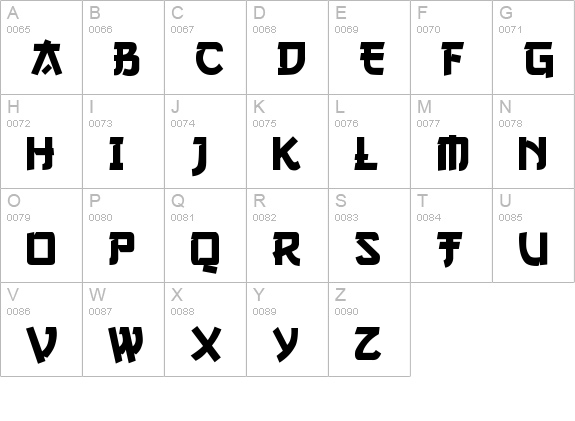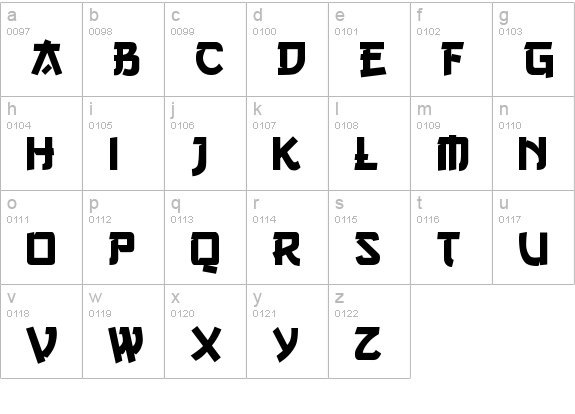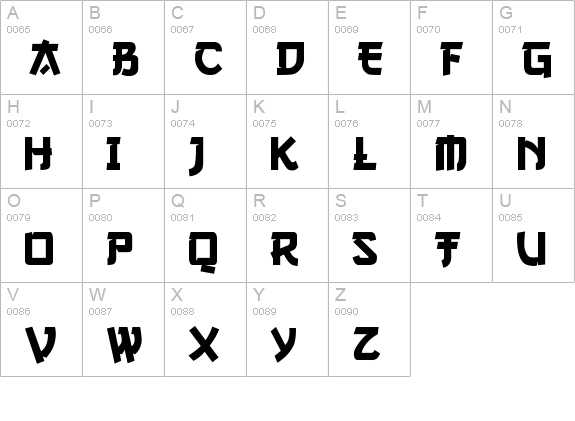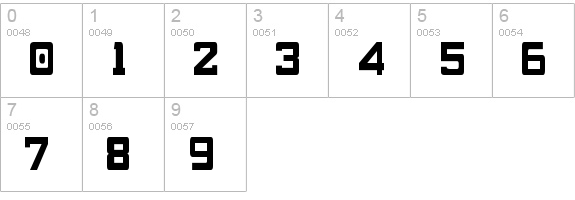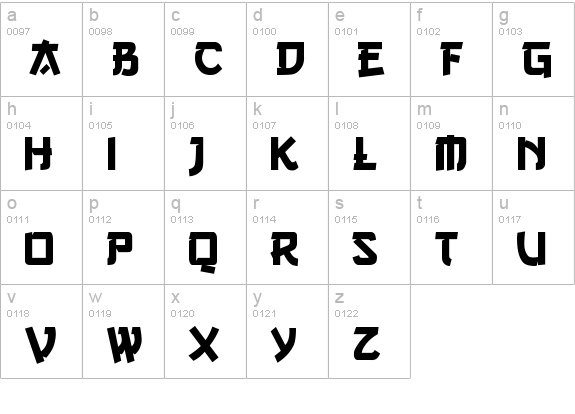
Gang of Three Font Details
Introducing Gang of Three, a captivating and versatile font that effortlessly blends modernity with a touch of retro charm. This typeface exudes a unique character that is both bold and playful, making it perfect for a wide range of creative projects. With its clean lines and distinctive letterforms, Gang of Three stands out from the crowd, commanding attention and leaving a lasting impression. Whether used for branding, advertising, web design, or even printed materials, this font adds a touch of sophistication and originality to any project it graces. What sets Gang of Three apart is its incredible versatility. It seamlessly adapts to various design styles, effortlessly transitioning from edgy and urban to elegant and refined. Its balanced proportions and carefully crafted curves make it a true visual delight, ensuring legibility and readability across different mediums. And the best part? Gang of Three is available for free! You can easily download this remarkable font at FontsMarket.com, a trusted source for high-quality fonts. Now, you can elevate your creative endeavors without breaking the bank. Whether you are a seasoned designer or just starting your creative journey, Gang of Three is the perfect companion, offering endless possibilities and boundless creativity. So, why wait? Embrace the power of this remarkable font and let your imagination run wild. Download Gang of Three today and embark on a typographic adventure like no other.